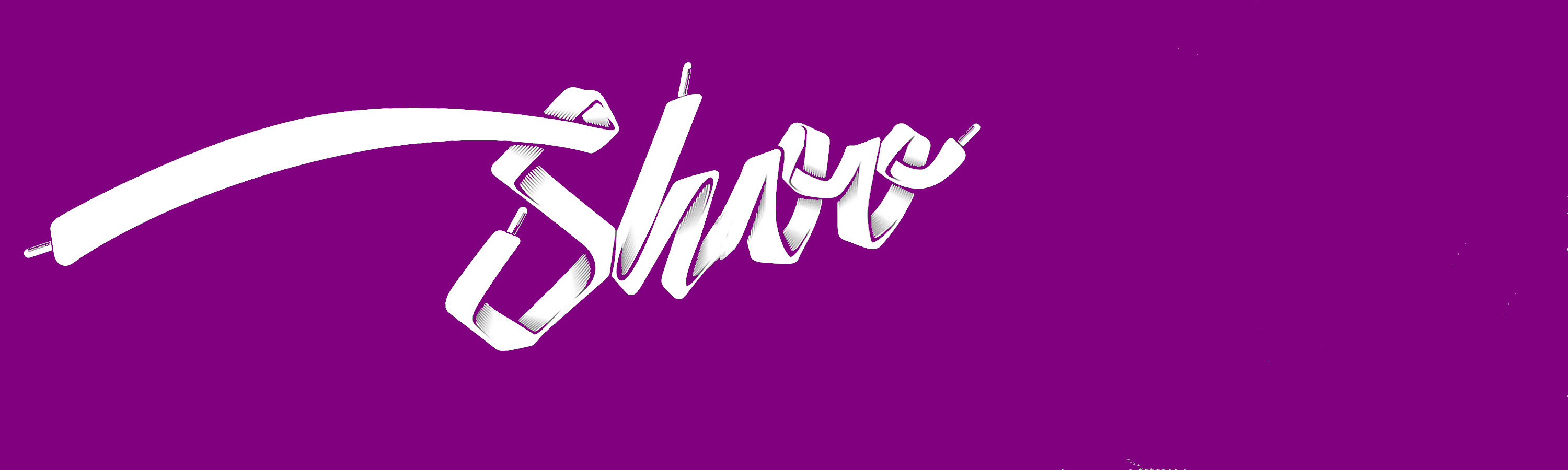
It also includes a clean version. 3 professional shoelaces fonts to download please note: Shoelace scrawl is a pretty and realistic handwritten script font.
See shoelace font stock video clips image type orientation color people artists more sort by. Introducing a simple line font with textured effect named “shoelaces”. $13.00 shoelaces font family was designed by gleb guralnyk and published by gleb guralnyk.
Opentype Features (Ligatures And Alternates) Helps To Make Your.
Shoelace is designed in new hampshire by cory laviska. 3 professional shoelaces fonts to download please note: Fonts shoelace font in script category.
Get Inspired By Its Incredibly Cursive Feel.
Shoelaces by gleb guralnyk individual styles from $13.00 complete family of 4 fonts: The font subfamily is regular. Give your typography a personal and casual style.